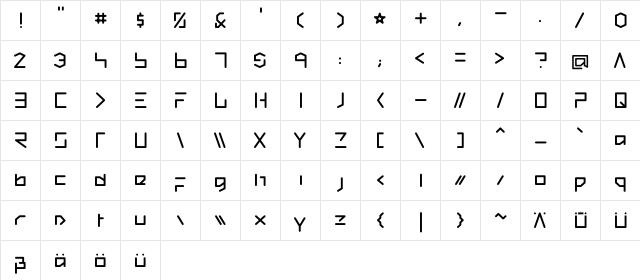
Thoemel Regular
Design Context for Thoemel Typeface
Thoemel takes a measured approach to typography — its balanced proportions and neutral character make it a reliable workhorse for both digital and print work.